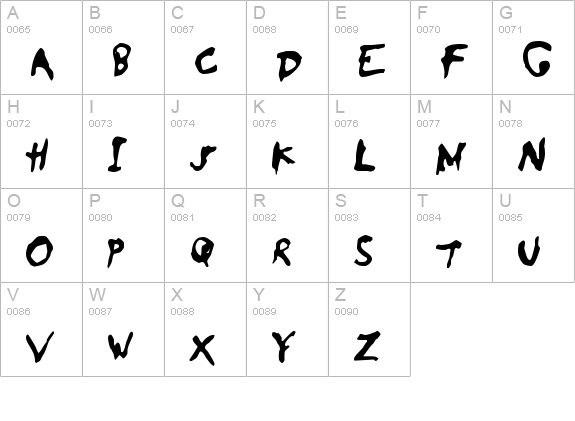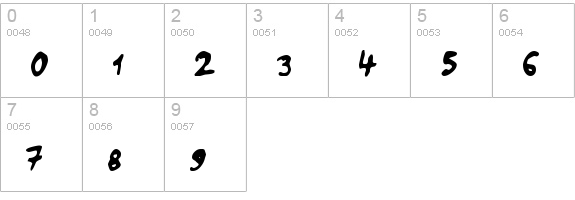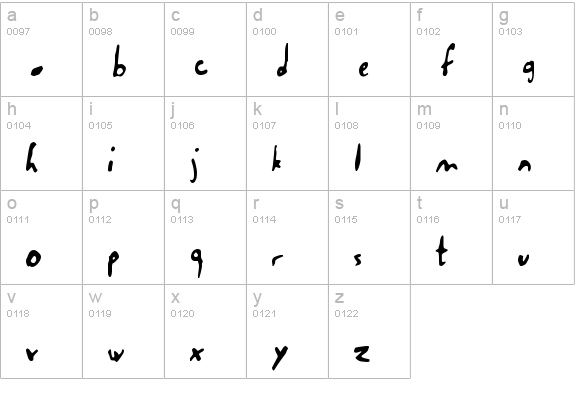
Salade De Fruits Orange Font Details
Introducing Salade De Fruits Orange font, a vibrant and playful typeface that will add a burst of energy to your designs. With its juicy orange color and whimsical letterforms, this font is perfect for projects that need a touch of fun and cheerfulness. Salade De Fruits Orange font is not only visually appealing but also highly versatile. Whether you're designing a poster, a logo, or a website, this font will bring a fresh and lively feel to your work. Its unique and eye-catching design will make your text stand out and grab attention. But that's not all – what makes Salade De Fruits Orange font even more appealing is that it is freely available to download at FontsMarket.com. Yes, you read that right! You can get your hands on this delightful font without spending a dime. It's the perfect opportunity to enhance your design projects without breaking the bank. So why wait? Download Salade De Fruits Orange font today and let your creativity flow freely. Whether you're a professional designer or just starting out, this font will be a valuable addition to your font collection. With its bold and playful style, it will make your designs pop and leave a lasting impression on your audience. Don't miss out on this fantastic free font – get it now at FontsMarket.com!